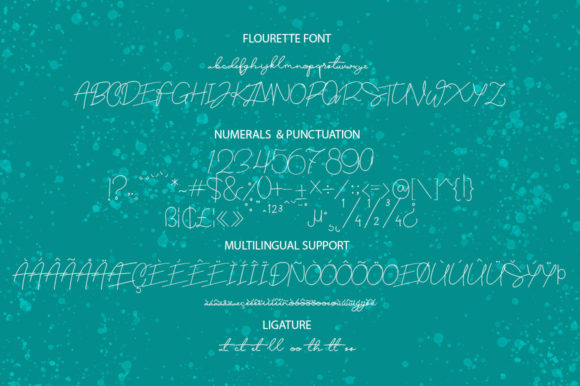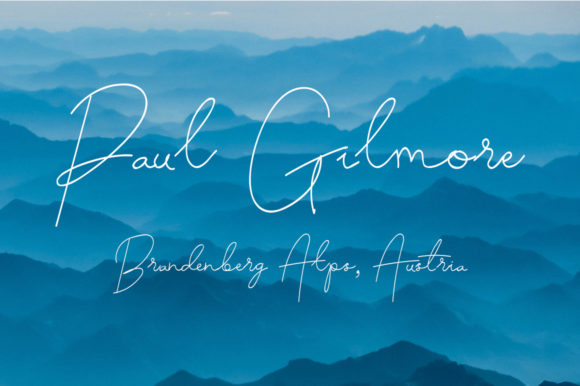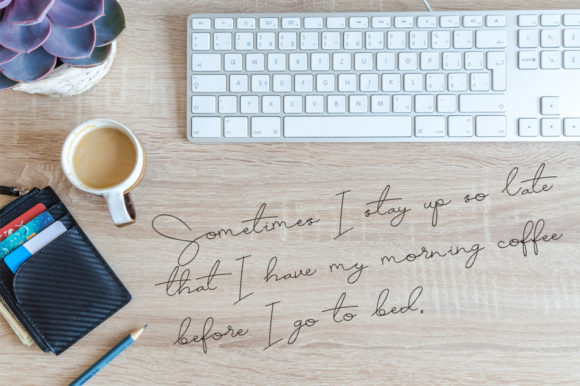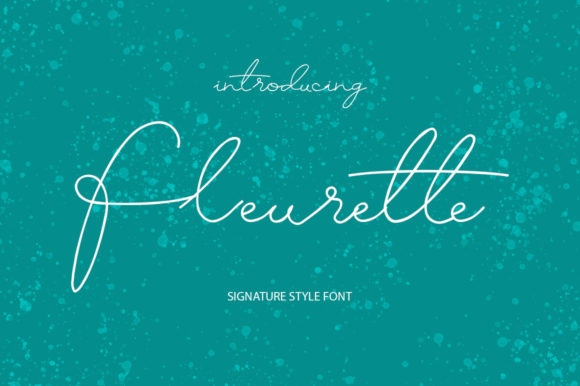
Fleurette Font
The Fleurette is an amazing signature script. It has an elegant feel and is perfect for watermarks, special events, and every other design that needs an authentic handwritten touch.